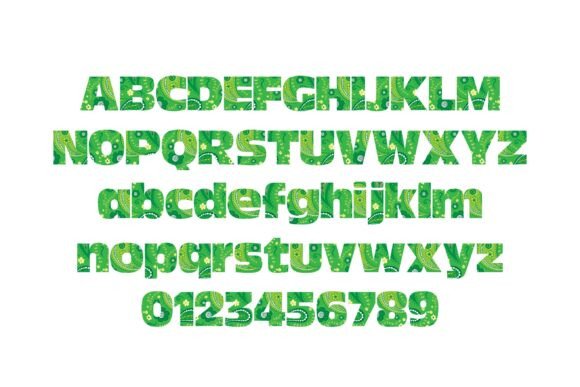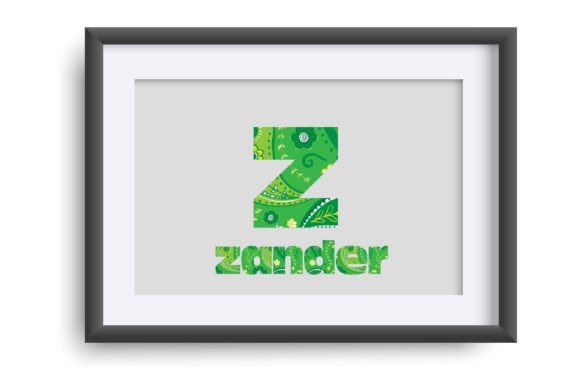
Patty Day Paisley Font
This full-color font features a simple sans serif font filled with pretty green paisley. There is an alt version you can access through your system’s character map that contains additional colors of all the letters. This font works best for titles, displays, posters and more. Please note color fonts will show as black in non compatible programs. This font type is compatible with Silhouette Studio. Full-color SVG fonts are the perfect way to add a touch of personality to your designs. With a full range of colors and styles to choose from, you can create anything from simple text logos to complex illustrations.